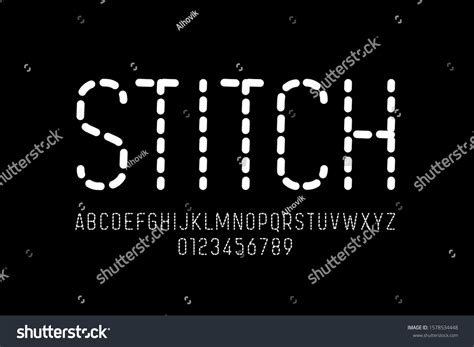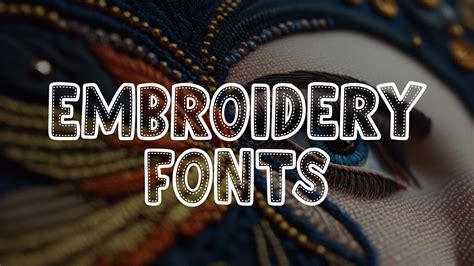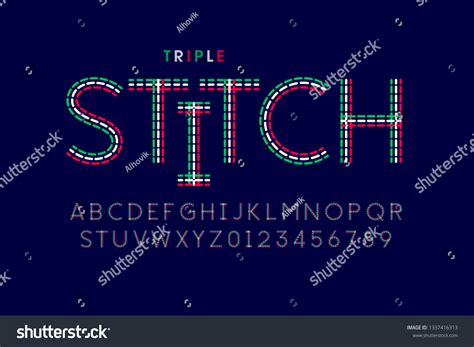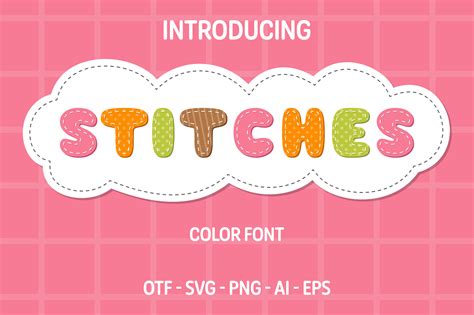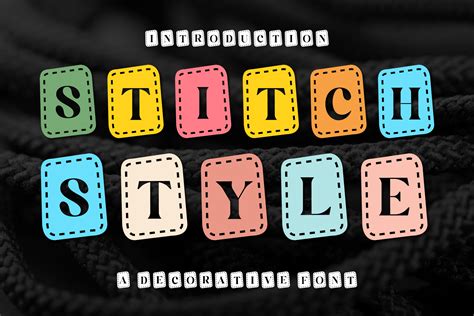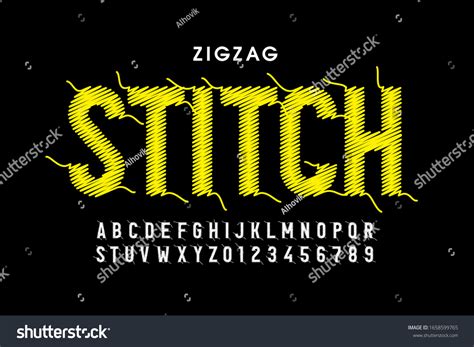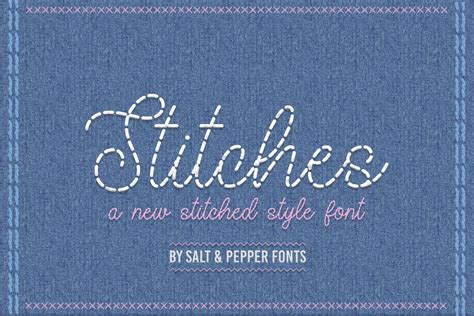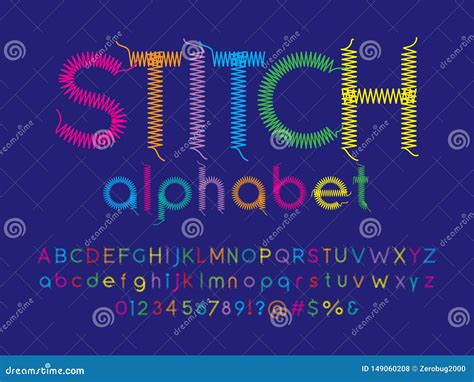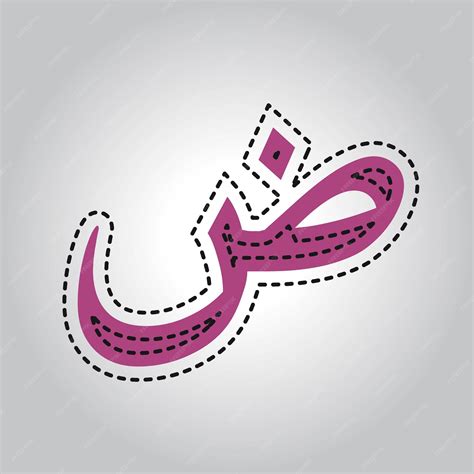
In the world of graphic design and typography, the choice of font can make or break a project. One font style that has gained significant attention is the Stitch Style Font. This unique font style is inspired by the classic embroidery stitches, offering a handcrafted and personalized touch to any design. Whether you're creating invitations, logos, or digital art, the Stitch Style Font can add a distinctive and charming element to your work.
Understanding the Stitch Style Font
The Stitch Style Font is characterized by its intricate, hand-drawn appearance, mimicking the look of embroidery stitches. This font style is perfect for projects that require a rustic, vintage, or handmade feel. The Stitch Style Font is versatile and can be used in a variety of contexts, from wedding invitations to branding materials.
History and Inspiration
The Stitch Style Font draws inspiration from traditional embroidery techniques. Embroidery has been a beloved craft for centuries, with its roots tracing back to ancient civilizations. The intricate patterns and stitches used in embroidery have inspired designers to create fonts that capture the same level of detail and craftsmanship. The Stitch Style Font is a modern interpretation of this traditional art form, bringing the charm of embroidery into the digital age.
Characteristics of the Stitch Style Font
The Stitch Style Font is known for its unique characteristics that set it apart from other font styles. Some of the key features include:
- Hand-Drawn Appearance: The font mimics the look of hand-drawn embroidery stitches, giving it a personal and authentic feel.
- Intricate Details: The font includes intricate details and patterns that add depth and texture to the design.
- Versatility: The Stitch Style Font can be used in a variety of projects, from invitations to branding materials, making it a versatile choice for designers.
- Rustic and Vintage Feel: The font's design evokes a sense of nostalgia and tradition, making it perfect for projects that require a rustic or vintage aesthetic.
Applications of the Stitch Style Font
The Stitch Style Font can be used in a wide range of applications, thanks to its versatility and unique design. Here are some popular uses for the Stitch Style Font:
- Wedding Invitations: The Stitch Style Font is a popular choice for wedding invitations, as it adds a personal and handcrafted touch to the design.
- Branding Materials: Businesses looking to create a rustic or vintage brand image can use the Stitch Style Font in their logos, business cards, and other branding materials.
- Digital Art: The Stitch Style Font can be used in digital art projects to add a unique and textured element to the design.
- Packaging Design: The font's intricate details and rustic feel make it a great choice for packaging design, especially for products that aim to evoke a sense of tradition and craftsmanship.
Designing with the Stitch Style Font
When designing with the Stitch Style Font, there are several tips and techniques to keep in mind to ensure your design stands out. Here are some key considerations:
- Color Scheme: Choose a color scheme that complements the rustic and vintage feel of the Stitch Style Font. Earthy tones, pastels, and muted colors work well with this font style.
- Background: Select a background that enhances the textured appearance of the font. Textured backgrounds, such as parchment or fabric, can add depth and dimension to your design.
- Pairing Fonts: Pair the Stitch Style Font with complementary fonts to create a balanced and harmonious design. Serif or script fonts can work well with the Stitch Style Font, adding a touch of elegance and sophistication.
- Spacing and Alignment: Pay attention to spacing and alignment to ensure the text is easy to read. The intricate details of the Stitch Style Font can make it challenging to read if not properly spaced.
💡 Note: When using the Stitch Style Font in digital projects, ensure that the font size is large enough to be legible on screens. The intricate details of the font can be lost at smaller sizes.
Creating Custom Stitch Style Fonts
If you're looking to create a custom Stitch Style Font, there are several tools and techniques you can use to achieve the desired look. Here are some steps to guide you through the process:
- Sketch Your Design: Start by sketching your design on paper. This will help you visualize the intricate details and patterns you want to include in your font.
- Digitize Your Sketch: Use a graphic design tool, such as Adobe Illustrator or Procreate, to digitize your sketch. This will allow you to refine the details and create a clean, vectorized version of your design.
- Create Font Glyphs: Use a font creation tool, such as FontForge or Glyphs, to create the individual glyphs for your font. This involves tracing the outlines of your design and converting them into a font format.